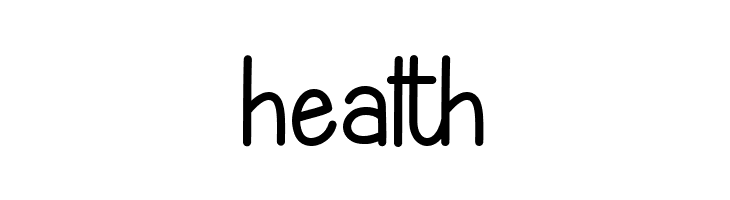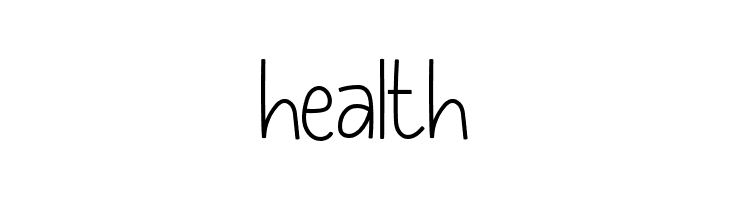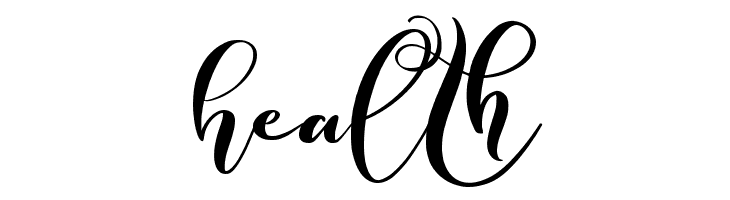
A playful, hand-drawn font with irregular, rounded edges and a casual style.
A graceful and fluid script font with a natural handwritten style.
A playful, bold, and hand-drawn font with a whimsical style.
A playful, handwritten font with a modern and friendly appearance.
A bold, italic font with sweeping curves and a modern calligraphic style.
A playful, handwritten font with bold, rounded characters and whimsical details.
A flowing, cursive script font with elegant swashes and intricate loops.
An elegant script font with flowing, cursive characters and medium contrast.
A lively and elegant script font with flowing, cursive letterforms.
A playful, handwritten font with rounded, irregular characters.